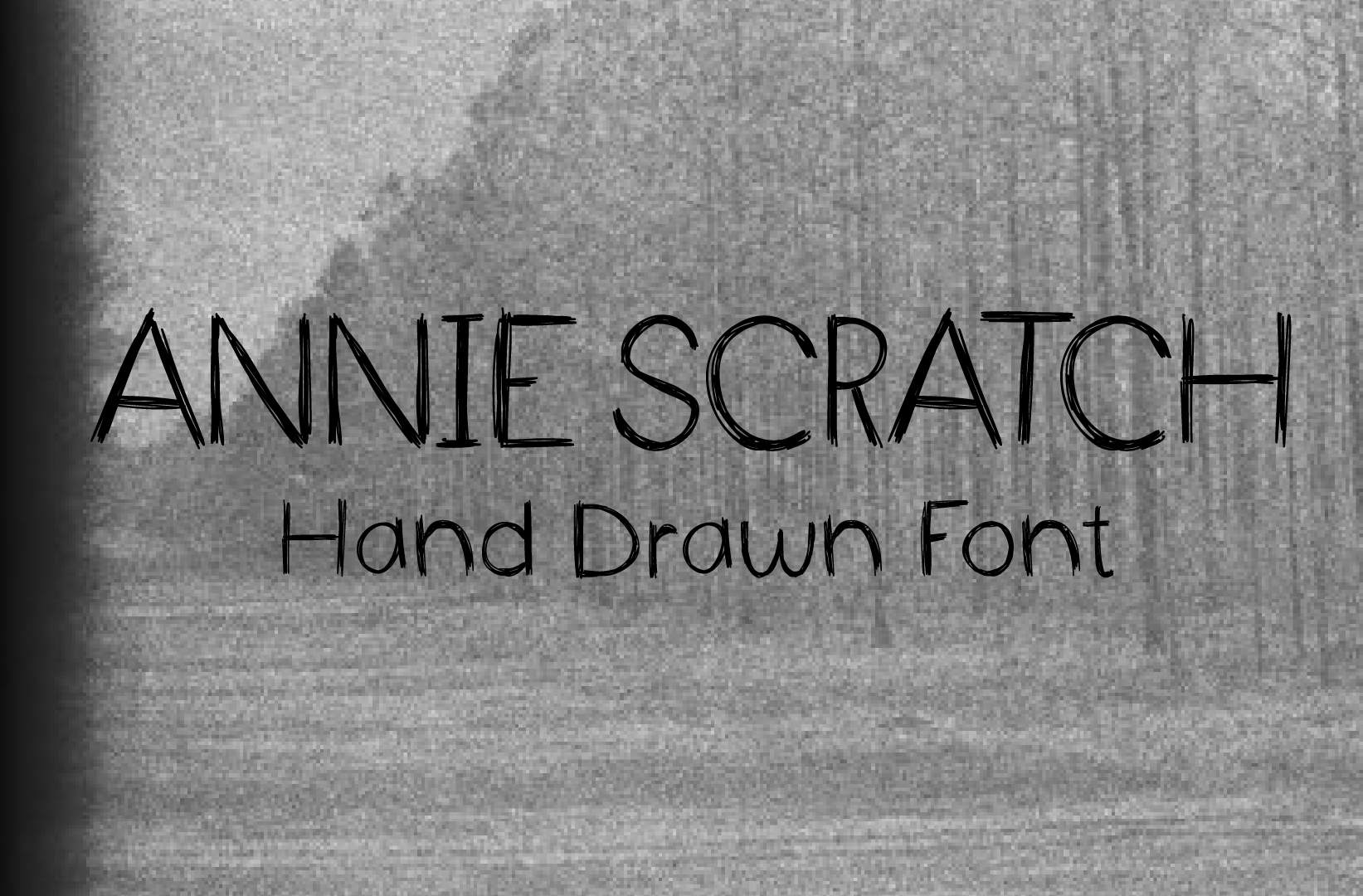
Annie Scratch Font
This is a handwritten font that I usually use to make my headers in my planners and To Do lists! I feel like it's the perfect, fun, wonky font for headers. I then thought, maybe someone else would also feel the same way about this font! So here you go! Created on my ipad!